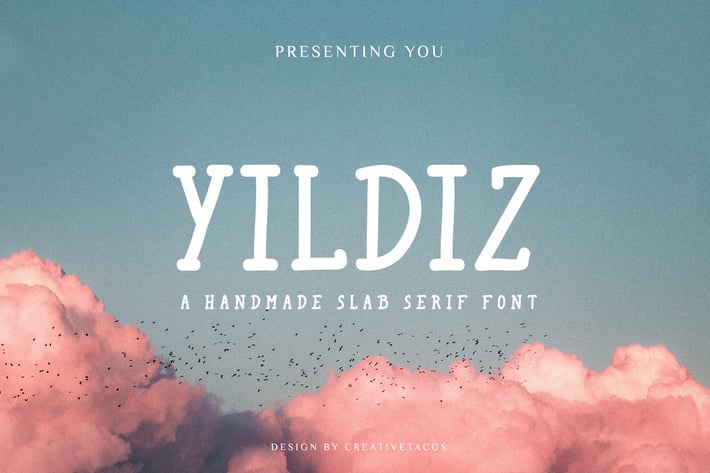
Yildiz Slab Serif Font
Yildiz is a sweet, cute, and charming handwritten slab serif font that will be useful and fun to use in your next projects. It contains uppercase, lowercase, number, punctuation and symbols.
Yildiz font is excellent for various projects like packaging, presentations, logo, headlines, lettering, posters, branding, quotes, titles, note-making, magazine headings, web layouts, advertising, invitations, packaging design, kid's projects, books, and any creative project you can imagine.
Yildiz Font Features:
- Uppercase Letters
- Lowercase Letters
- ABCDEFGHIJKLMNOPQRSTUVWXYZ
- abcdefghijklmnopqrstuvwxyz
- 0123456789
- !"#$%&'()*+,-./:;?@[\]^_`{|}~